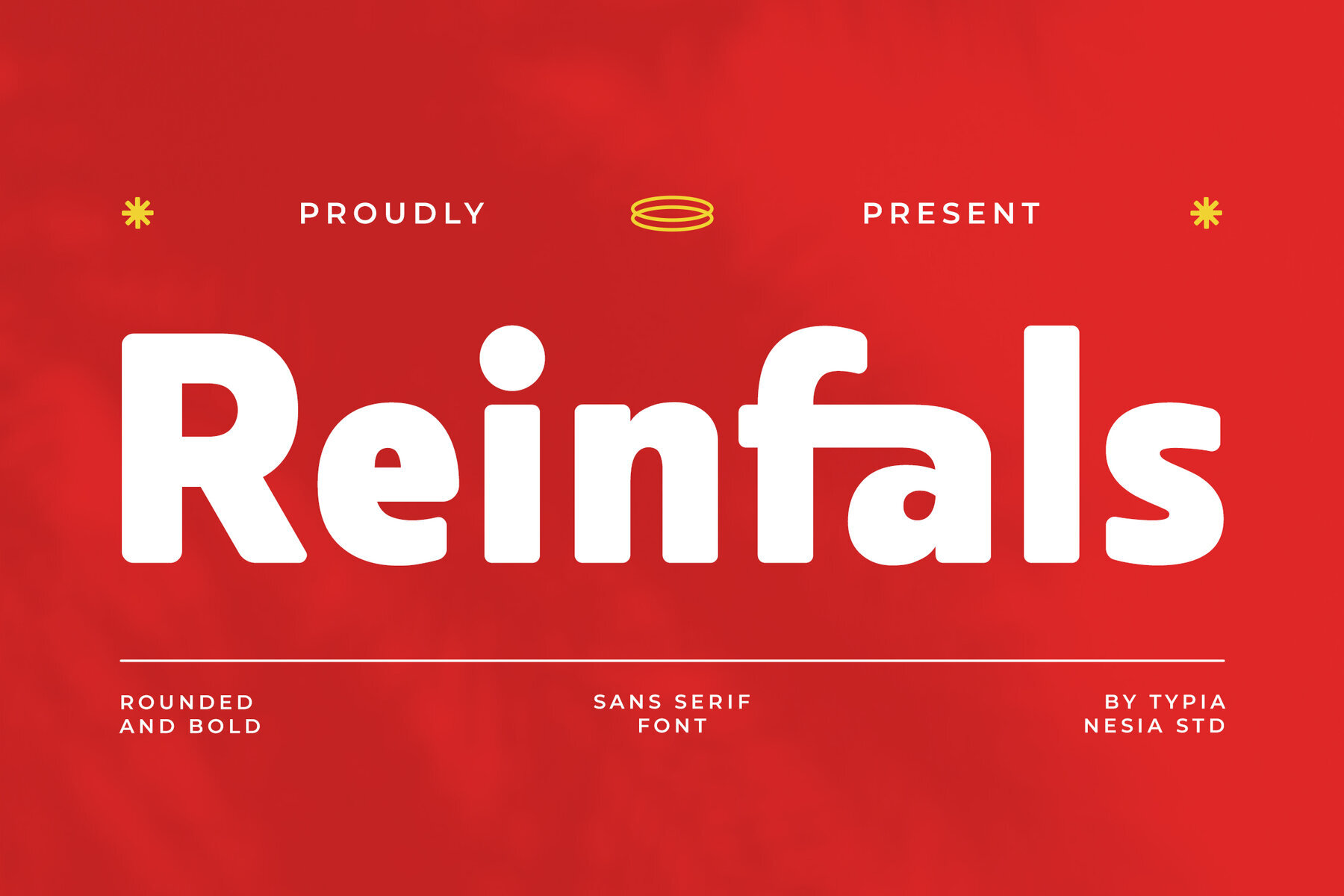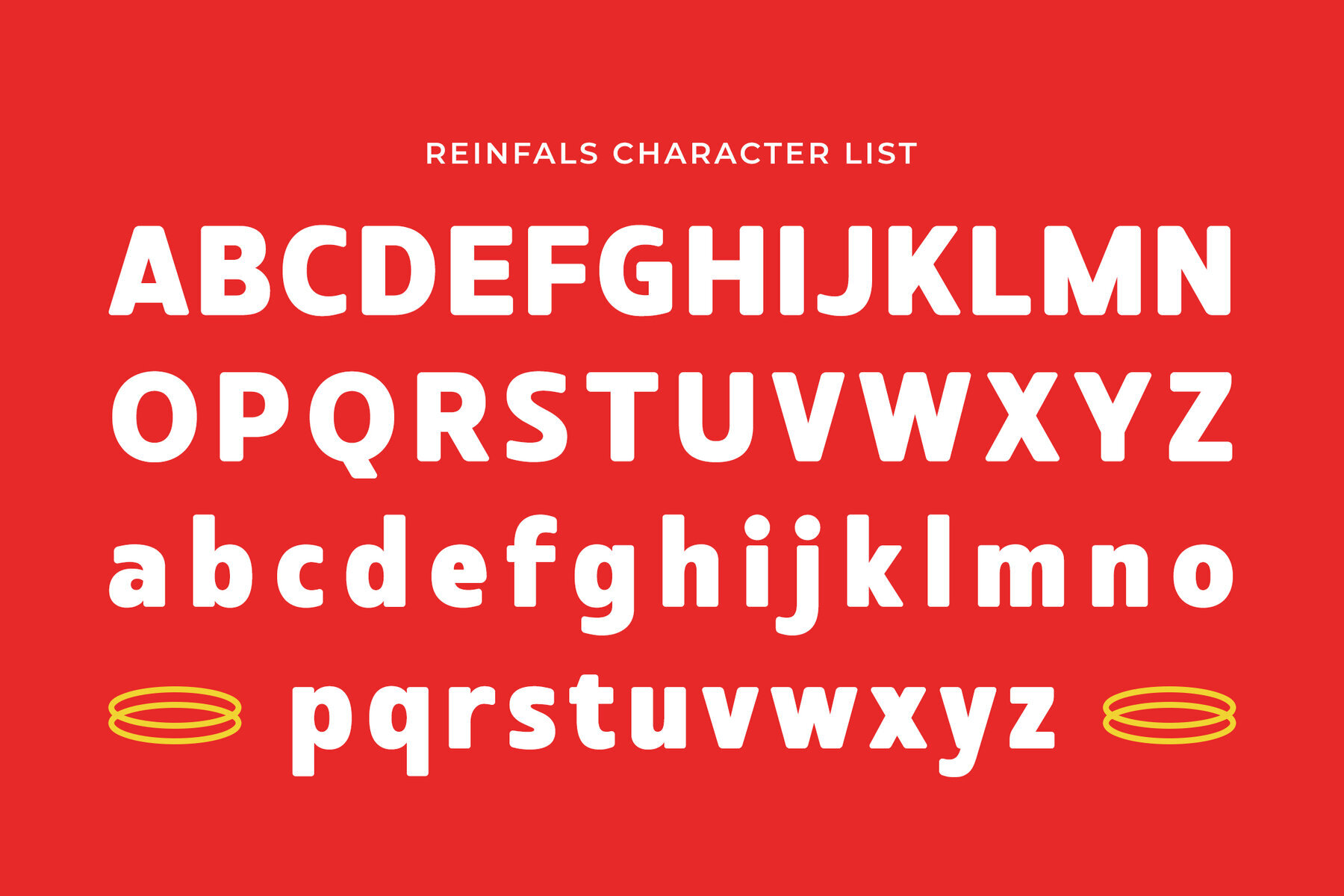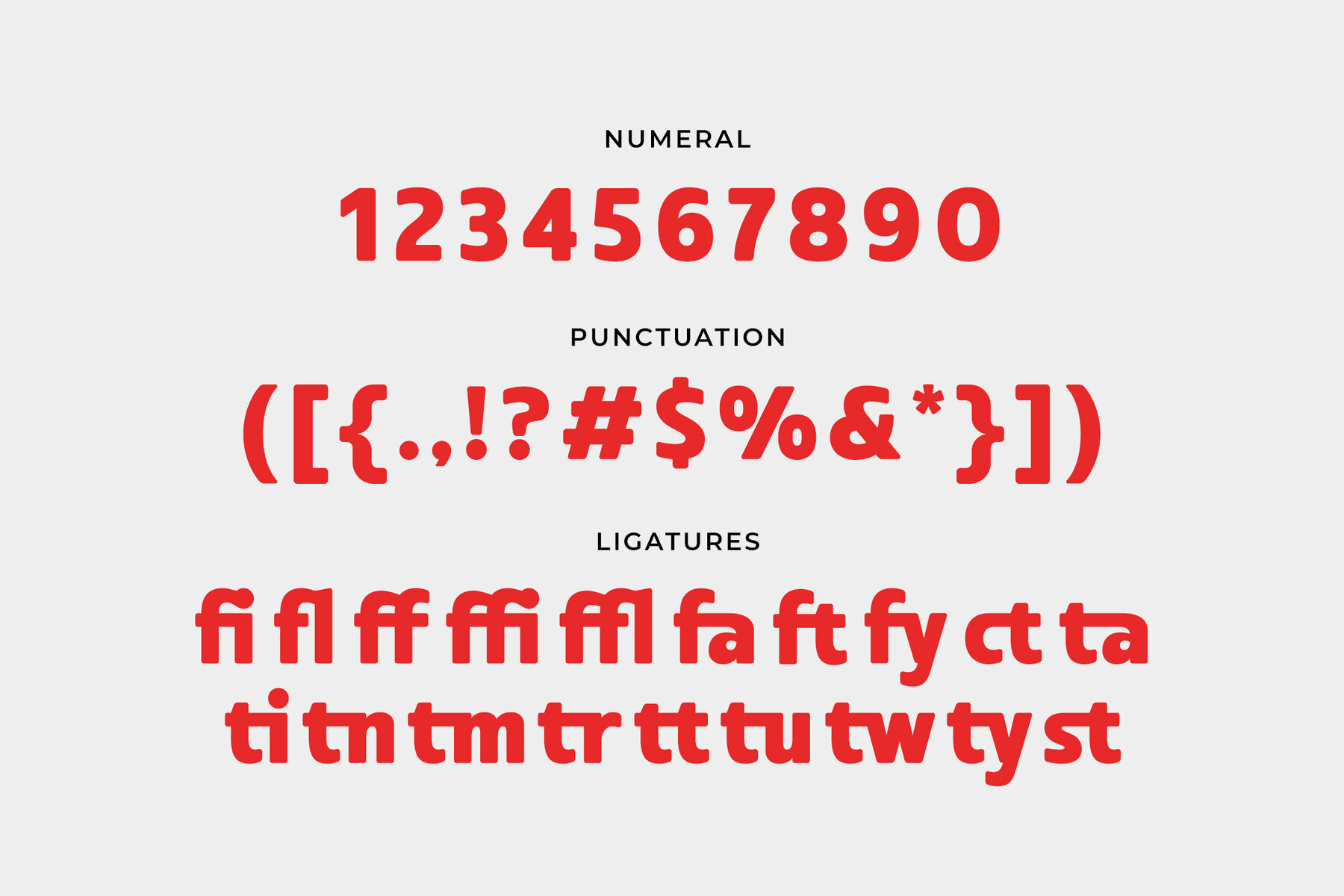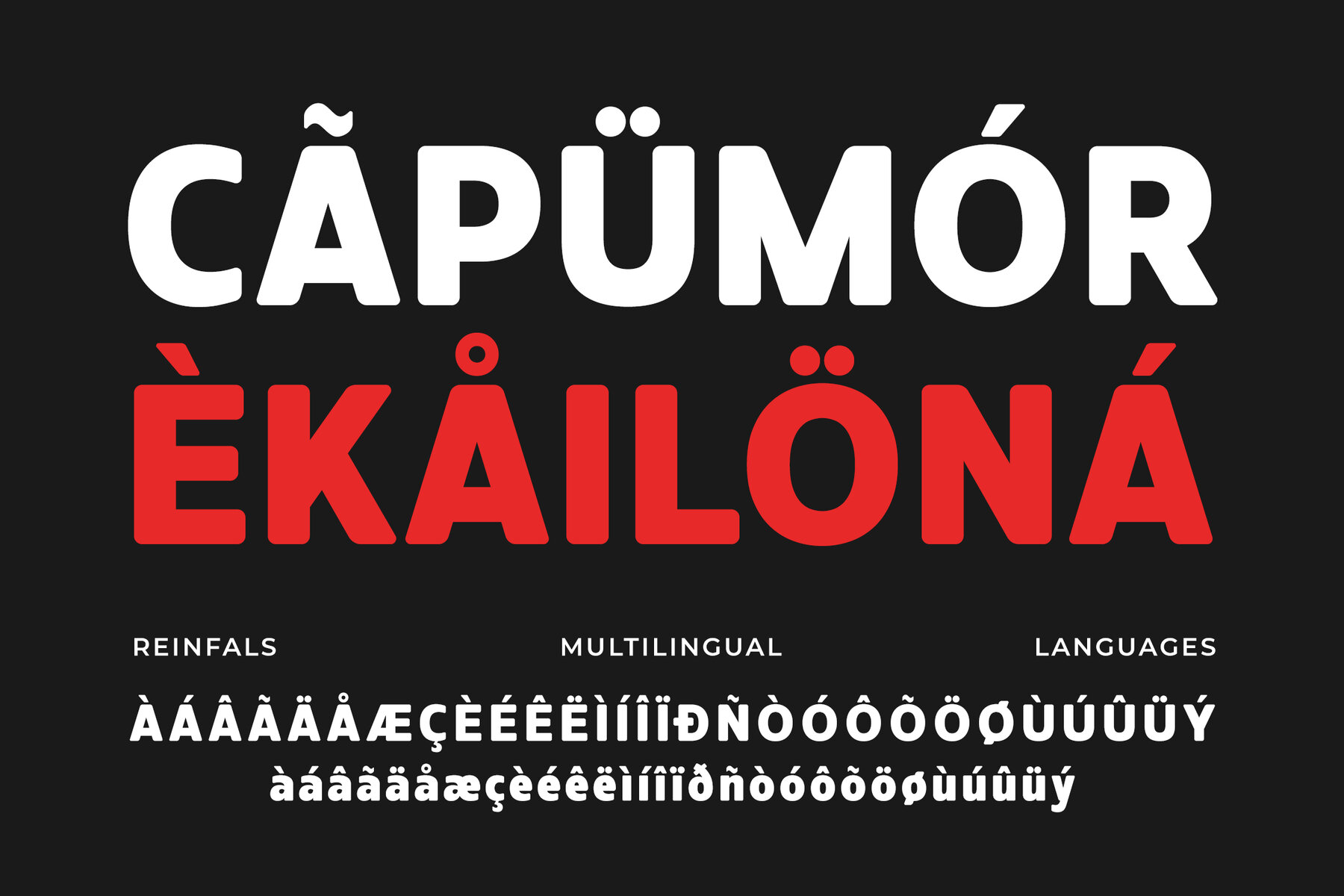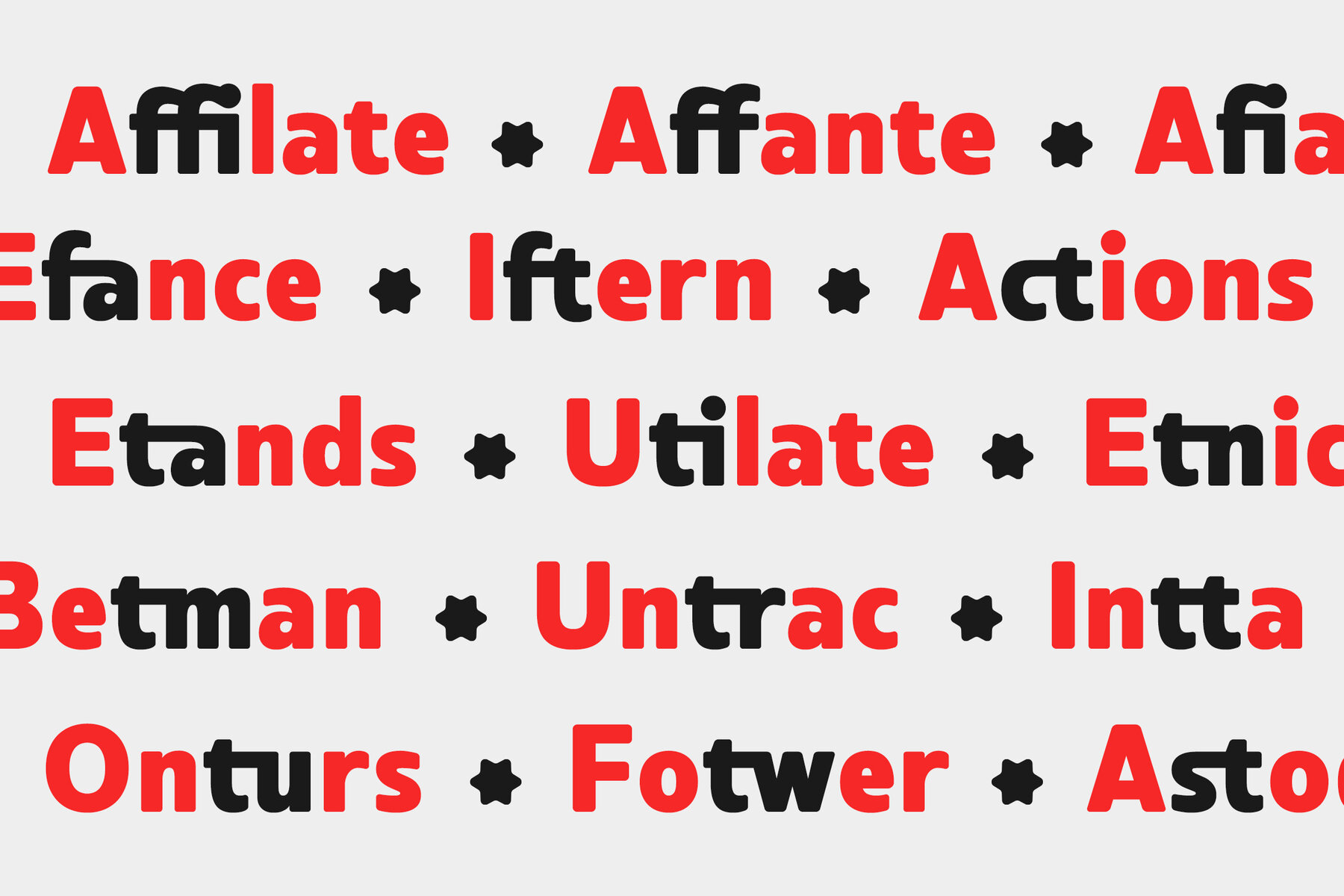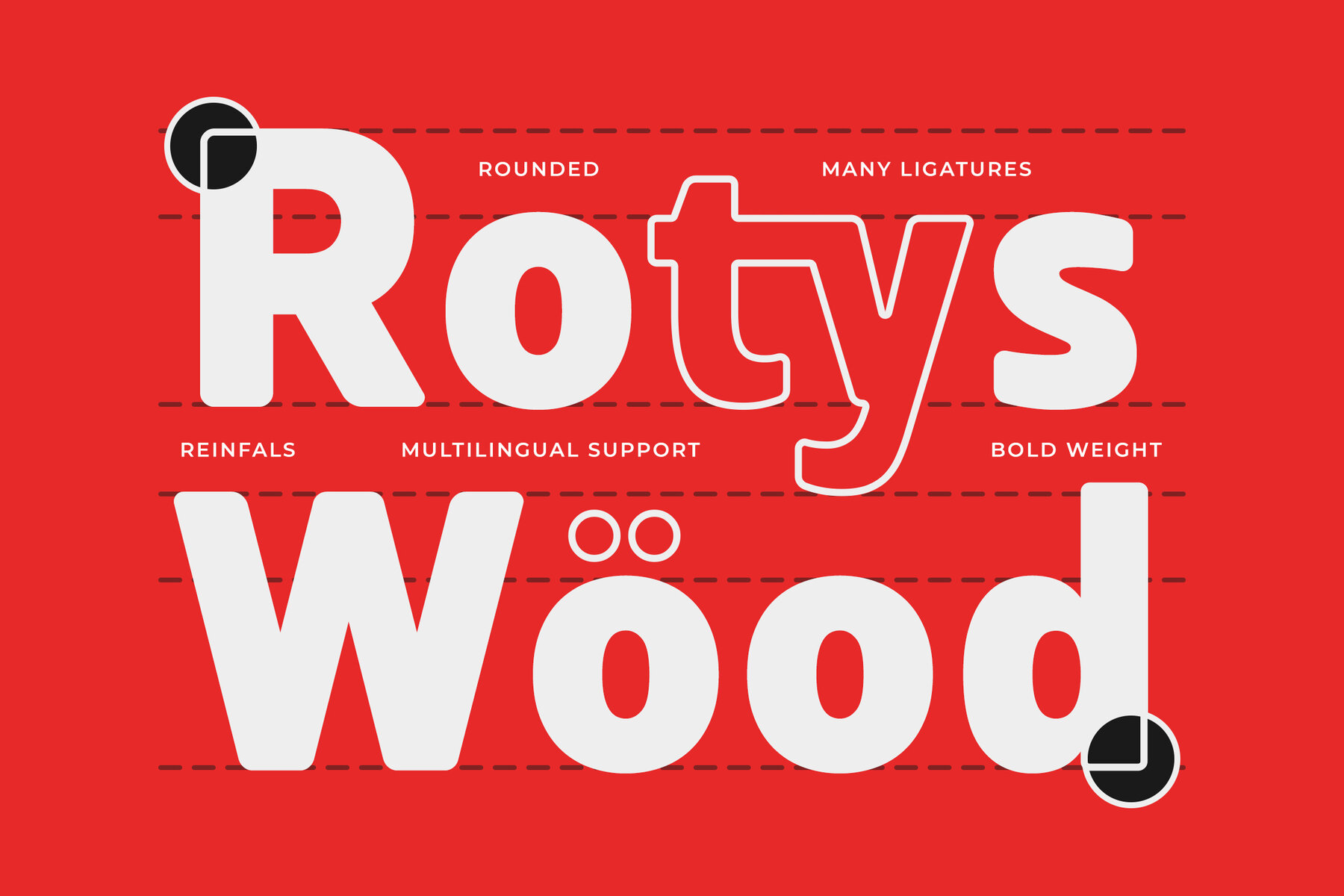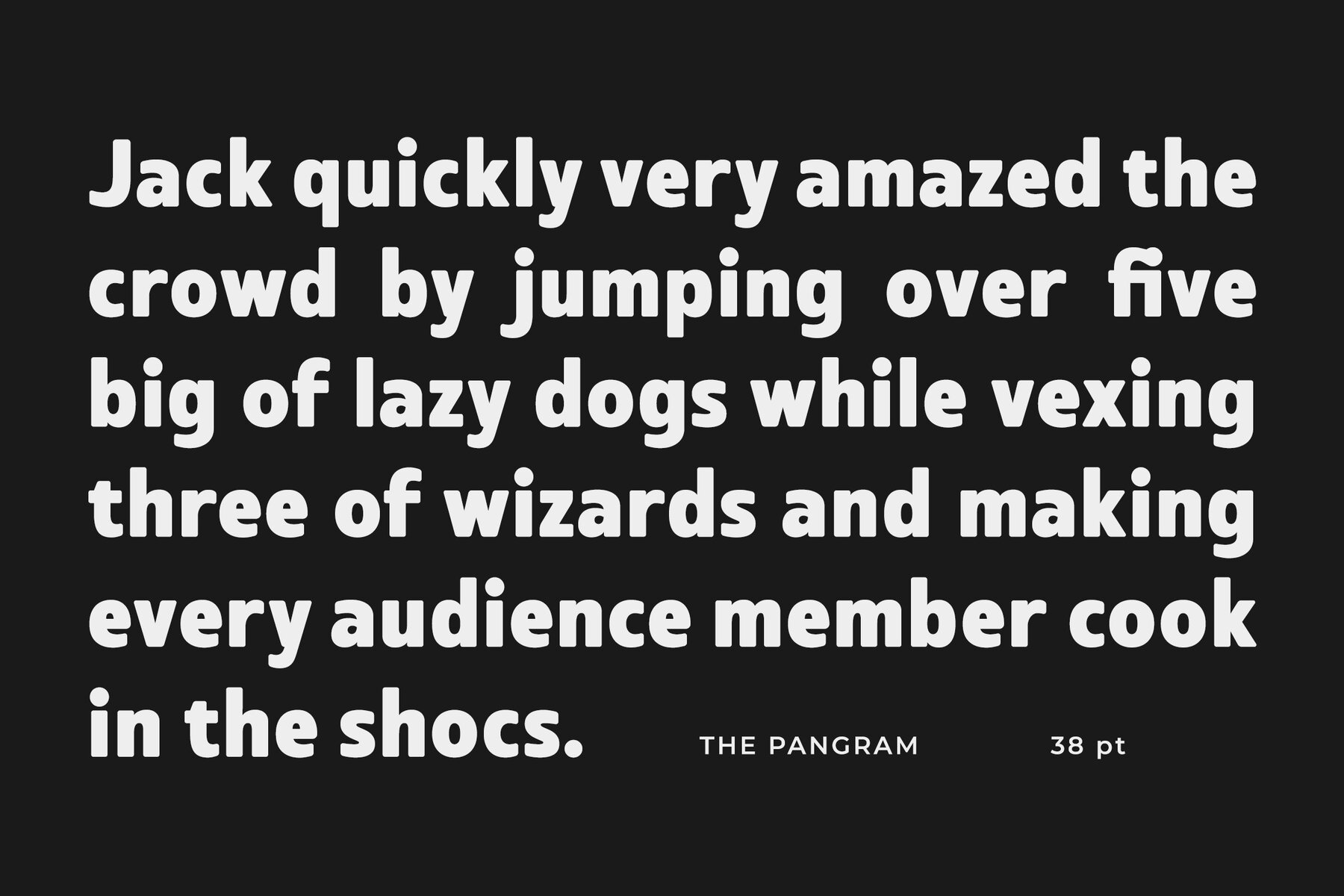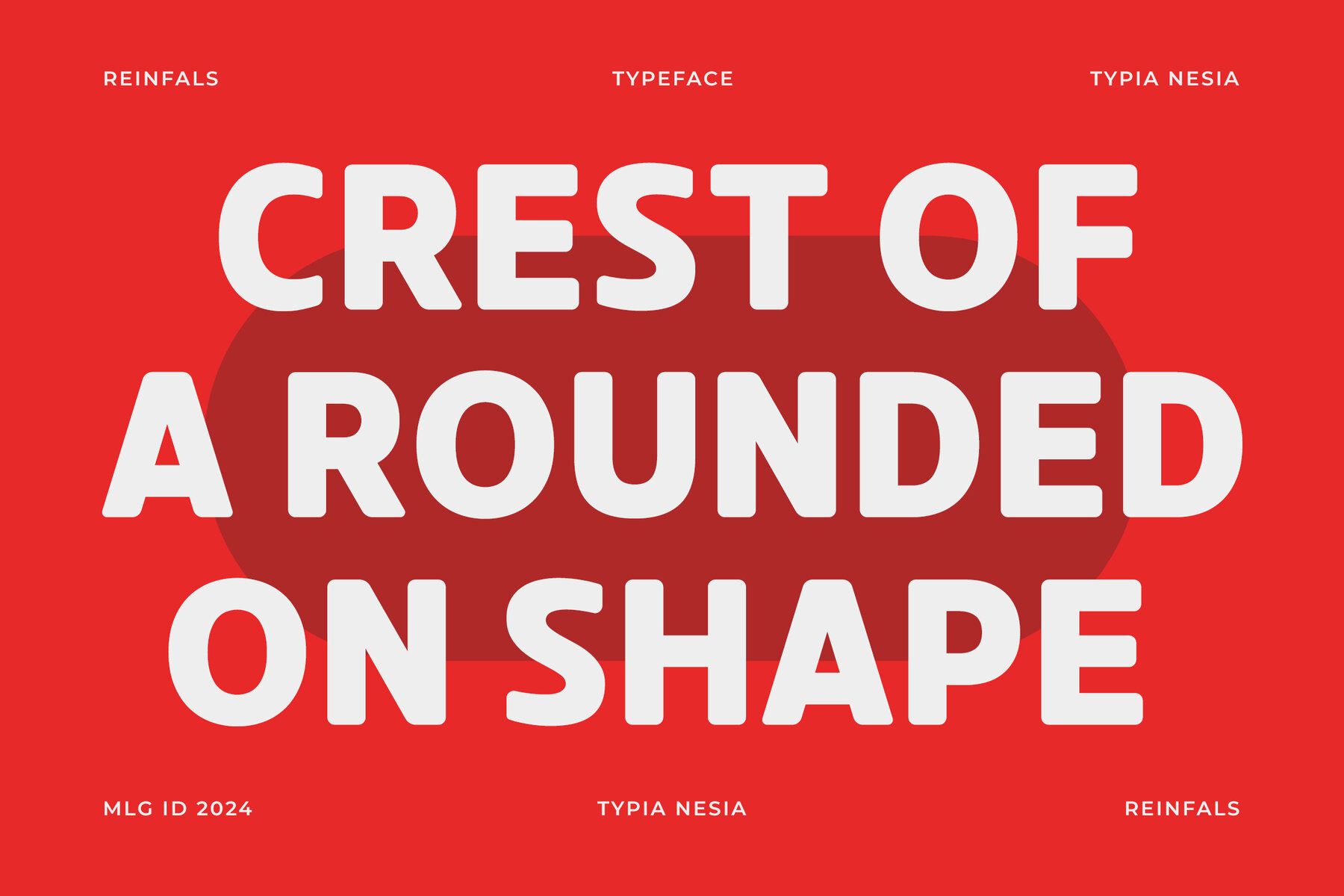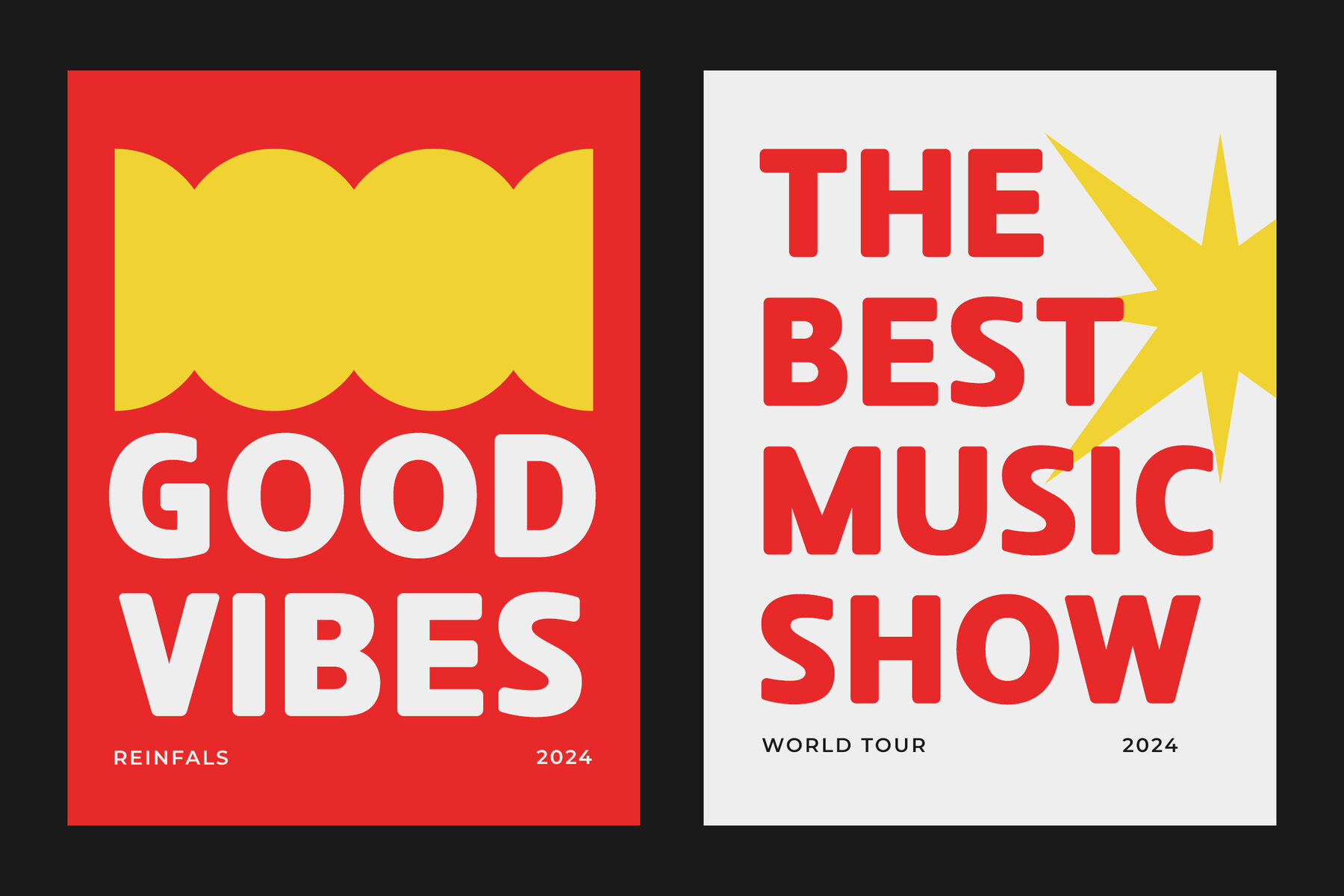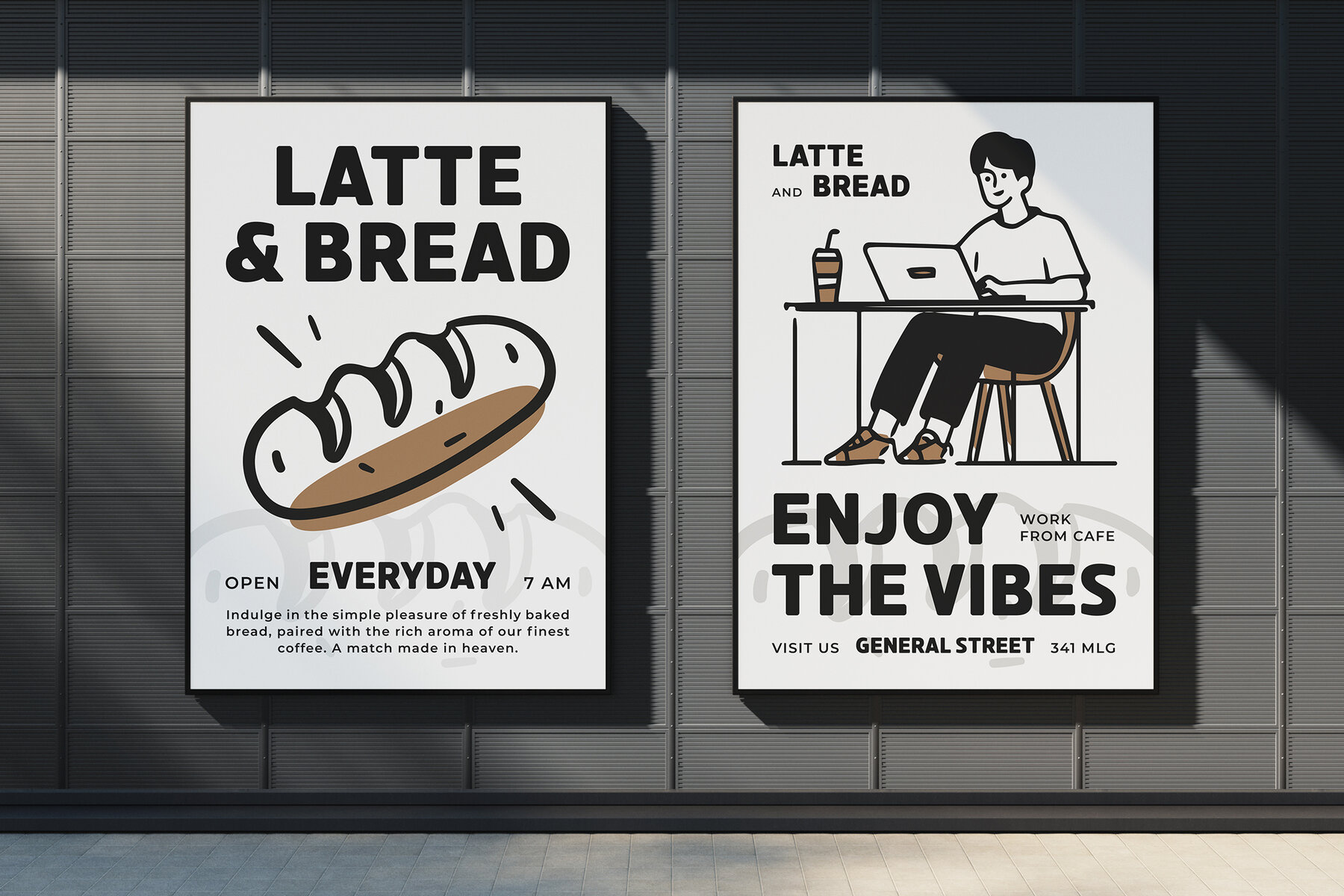
Reinfals Font
Reinfals Regular
Reinfals is a Rounded & Bold Sans Serif Font that combines modern simplicity with a friendly, approachable vibe. Its thick, rounded letters convey confidence and warmth, making it ideal for brands that want to stand out without sacrificing charm. Perfect for branding, headlines, packaging, logos, product labels, magazines, editorials, website headers, banners, and any project that needs a bold yet rounded style, Reinfals suits industries from tech to lifestyle. It adds personality to websites, posters, and social media graphics. Reinfals includes uppercase and lowercase letters, punctuation, numerals, multilingual support, and ligatures, offering designers the flexibility to create cohesive and captivating designs. Ideal for those seeking a blend of boldness and approachability, Reinfals is crafted to deliver high-impact and memorable visual appeal across various applications.